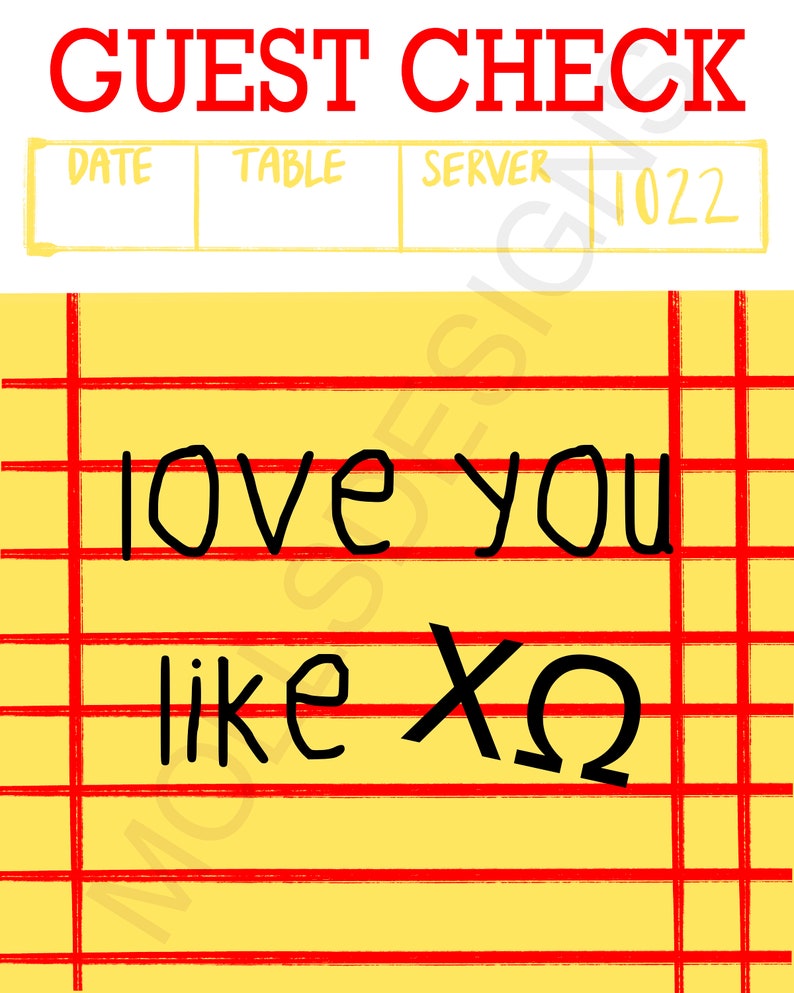
Guest Check Font . Examples and download link for the guest check font designed by stuart sandler in 1998. Font family by font diner. With its clean lines and elegant. The font subfamily is regular. The management kindly requests your departure with the arrival of your guest check! Click the download button to download the. Download—the font meta search engine with more than 50,000 font styles to find and order. Experience the guestcheck regular font on windows, mac, and linux with our instant preview feature. The guest check font is a stylish and versatile typeface that exudes a classic and timeless aesthetic. Collection of fonts for guest check. See how guestcheck regular looks. Guest check by stuart sandler: Guest check is the perfect font for all your fun designs. This fine art deco inspired font. The management kindly requests your departure with the arrival of your guest check!
Guest check is the perfect font for all your fun designs. Guest check by stuart sandler: The guest check font is a stylish and versatile typeface that exudes a classic and timeless aesthetic. The management kindly requests your departure with the arrival of your guest check! Click the download button to download the. Download—the font meta search engine with more than 50,000 font styles to find and order. This fine art deco inspired font. This fine art deco inspired font came from, you guessed it, a. Font family by font diner. Includes 1 font style from $22.
Guest Check Font Download—the font meta search engine with more than 50,000 font styles to find and order. Guest check by stuart sandler: Download—the font meta search engine with more than 50,000 font styles to find and order. The management kindly requests your departure with the arrival of your guest check! Guest check is the perfect font for all your fun designs. Click the download button to download the. The management kindly requests your departure with the arrival of your guest check! Includes 1 font style from $22. This fine art deco inspired font. Experience the guestcheck regular font on windows, mac, and linux with our instant preview feature. The guest check font is a stylish and versatile typeface that exudes a classic and timeless aesthetic. Font family by font diner. Collection of fonts for guest check. With its clean lines and elegant. Examples and download link for the guest check font designed by stuart sandler in 1998. See how guestcheck regular looks.
Blue Guest Checks. Diner Guest Checks. Junk Journal Paper. Etsy Guest Check Font Guest check is the perfect font for all your fun designs. The management kindly requests your departure with the arrival of your guest check! Includes 1 font style from $22. With its clean lines and elegant. The font subfamily is regular. Experience the guestcheck regular font on windows, mac, and linux with our instant preview feature. Examples and download link. Guest Check Font.
Receipt book “Guest Check” font? r/identifythisfont Guest Check Font Guest check is the perfect font for all your fun designs. Includes 1 font style from $22. With its clean lines and elegant. Download—the font meta search engine with more than 50,000 font styles to find and order. The management kindly requests your departure with the arrival of your guest check! Collection of fonts for guest check. Font family by. Guest Check Font.
Guest Check Vintage junk journal, Free vintage printables, Junk journal Guest Check Font Examples and download link for the guest check font designed by stuart sandler in 1998. Guest check is the perfect font for all your fun designs. Download—the font meta search engine with more than 50,000 font styles to find and order. Experience the guestcheck regular font on windows, mac, and linux with our instant preview feature. The guest check font. Guest Check Font.
SODOR Font and Guest Check Font by charlieaat1108 on DeviantArt Guest Check Font Font family by font diner. The guest check font is a stylish and versatile typeface that exudes a classic and timeless aesthetic. Click the download button to download the. The font subfamily is regular. With its clean lines and elegant. Guest check is the perfect font for all your fun designs. Collection of fonts for guest check. The management kindly. Guest Check Font.
Guest Check Font YouWorkForThem Guest Check Font With its clean lines and elegant. See how guestcheck regular looks. The guest check font is a stylish and versatile typeface that exudes a classic and timeless aesthetic. Collection of fonts for guest check. Guest check by stuart sandler: Guest check is the perfect font for all your fun designs. The management kindly requests your departure with the arrival of. Guest Check Font.
Guest Check Printable Guest Check Font Examples and download link for the guest check font designed by stuart sandler in 1998. Experience the guestcheck regular font on windows, mac, and linux with our instant preview feature. The management kindly requests your departure with the arrival of your guest check! Includes 1 font style from $22. See how guestcheck regular looks. Click the download button to download. Guest Check Font.
Guest Check Regular Download For Free, View Sample Text, Rating And Guest Check Font The management kindly requests your departure with the arrival of your guest check! Download—the font meta search engine with more than 50,000 font styles to find and order. With its clean lines and elegant. Collection of fonts for guest check. Examples and download link for the guest check font designed by stuart sandler in 1998. Guest check by stuart sandler:. Guest Check Font.
Guest Check Font YouWorkForThem Guest Check Font Includes 1 font style from $22. Collection of fonts for guest check. Download—the font meta search engine with more than 50,000 font styles to find and order. Examples and download link for the guest check font designed by stuart sandler in 1998. See how guestcheck regular looks. Experience the guestcheck regular font on windows, mac, and linux with our instant. Guest Check Font.
CUSTOM Guest Check Wall Art Design digital Download Preppy Etsy Guest Check Font This fine art deco inspired font. Download—the font meta search engine with more than 50,000 font styles to find and order. Guest check is the perfect font for all your fun designs. This fine art deco inspired font came from, you guessed it, a. Font family by font diner. Examples and download link for the guest check font designed by. Guest Check Font.